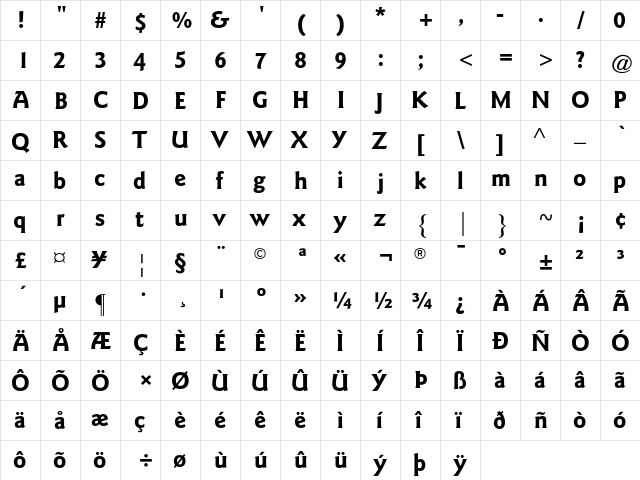
Goudy Sans AT Bold Regular
Design Context for Goudy Sans AT Bold Typeface
Goudy Sans AT Bold is a composed and adaptable typeface that performs quietly and consistently across a wide range of design contexts. Its bold stroke weight gives it real presence on the page.